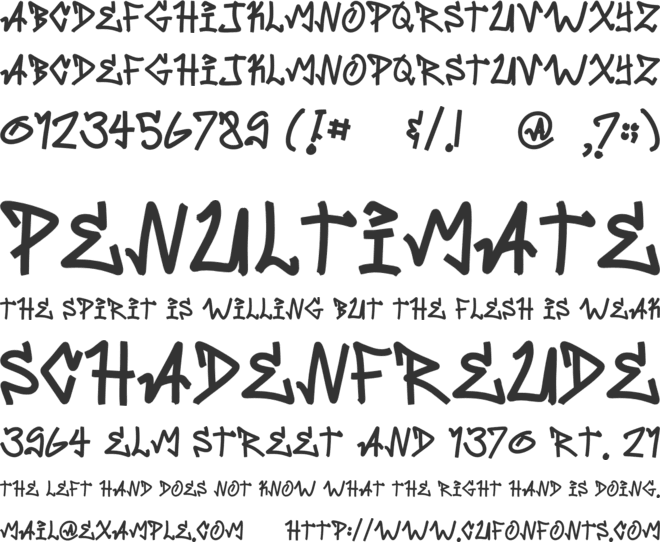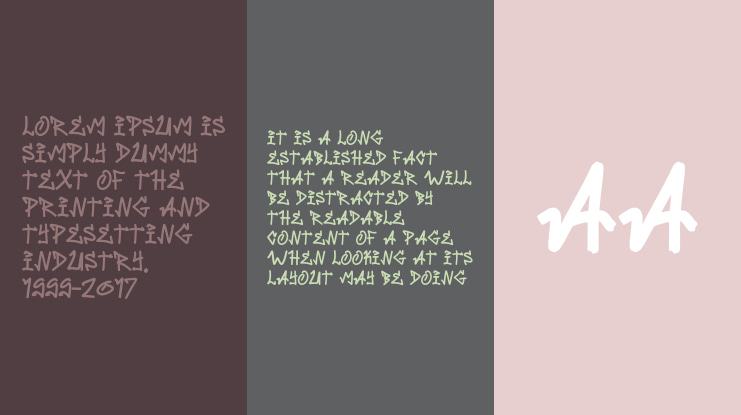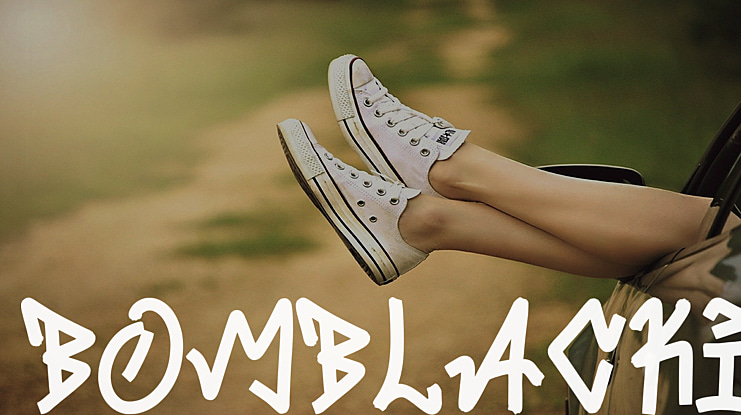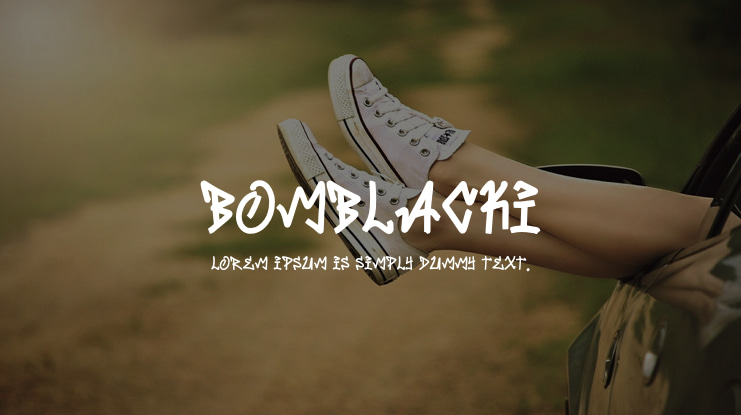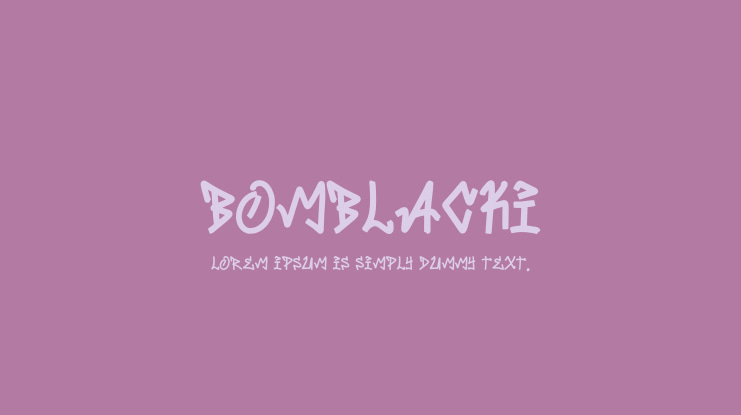
BOMBLACKI Font
This is a graffiti font. Bomblacki is perfect for branding project, apparel, labels, magazines, books, greeting / wedding cards, packaging, fashion, make up, stationery, and any type of advertising purpose or just used to express words above the background.